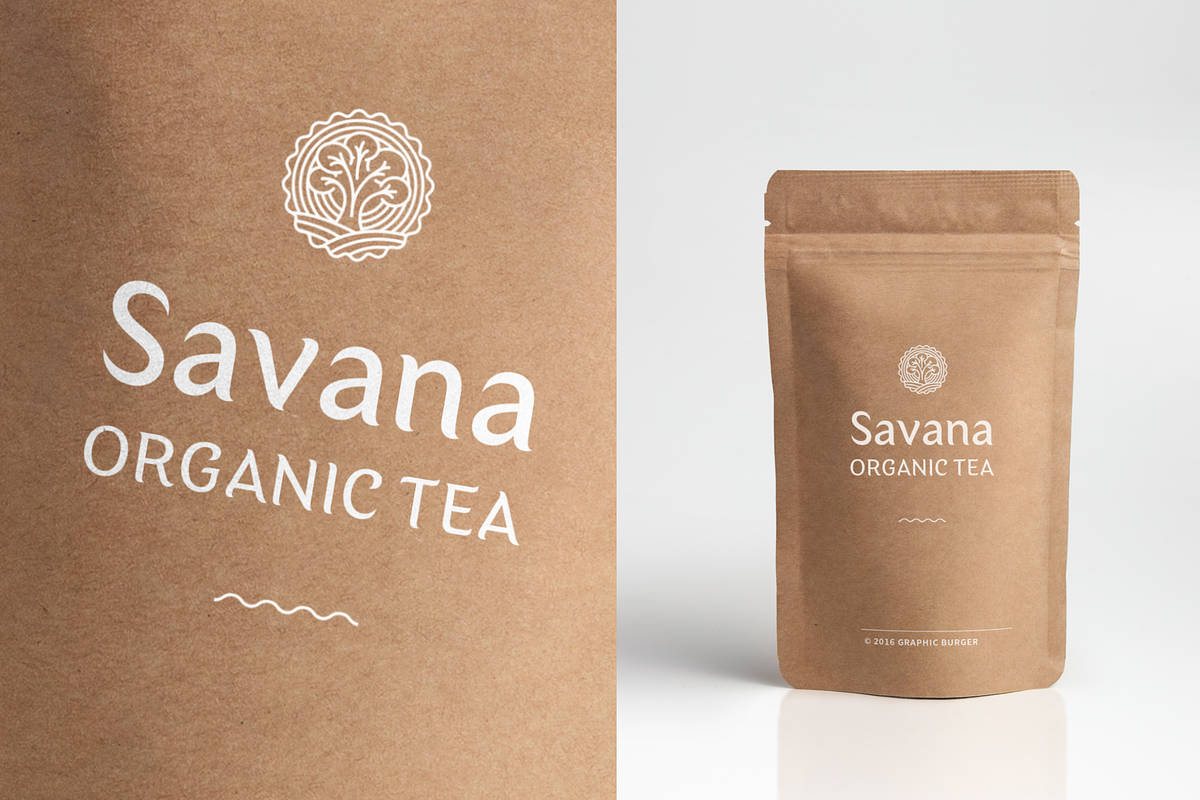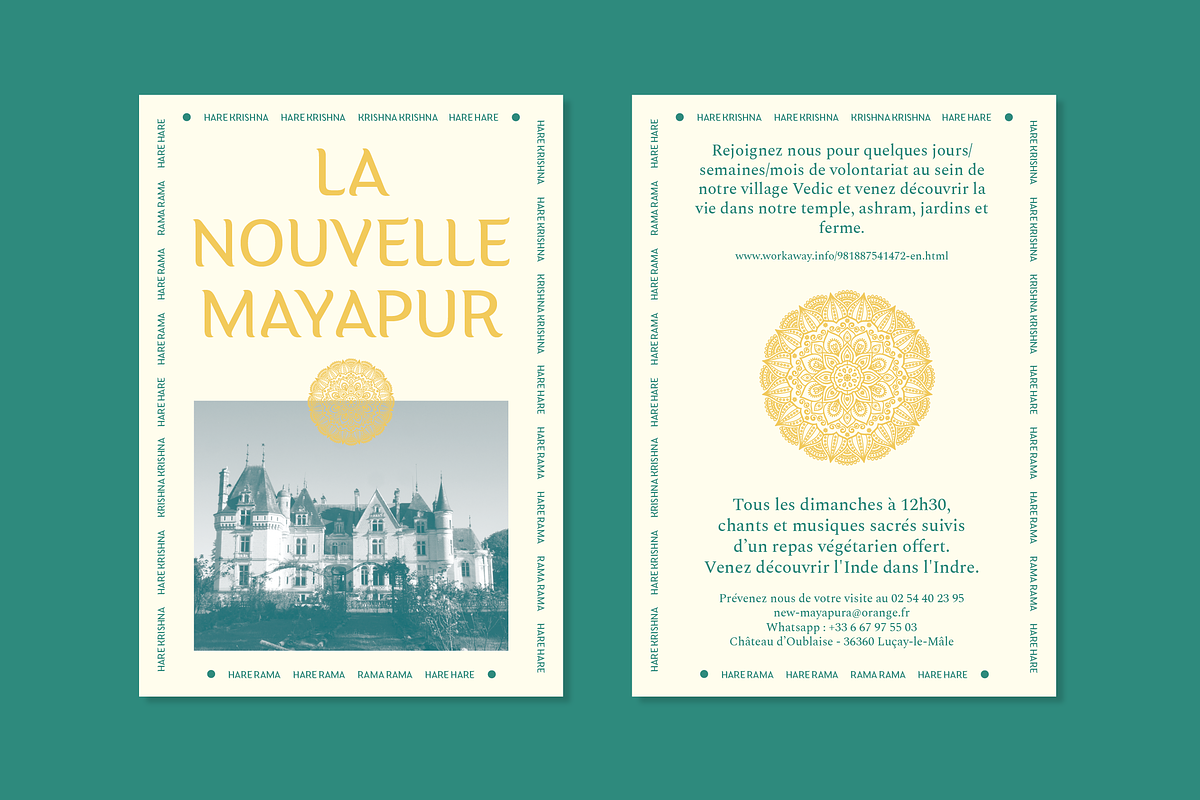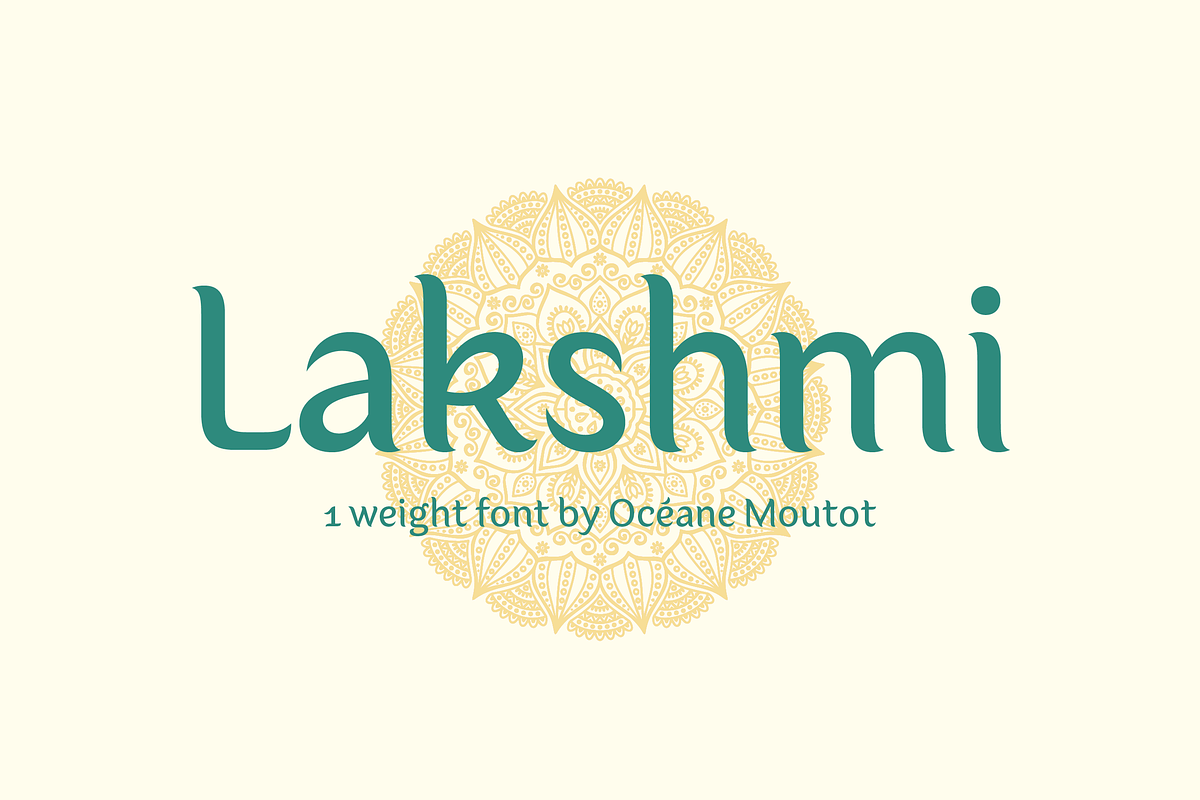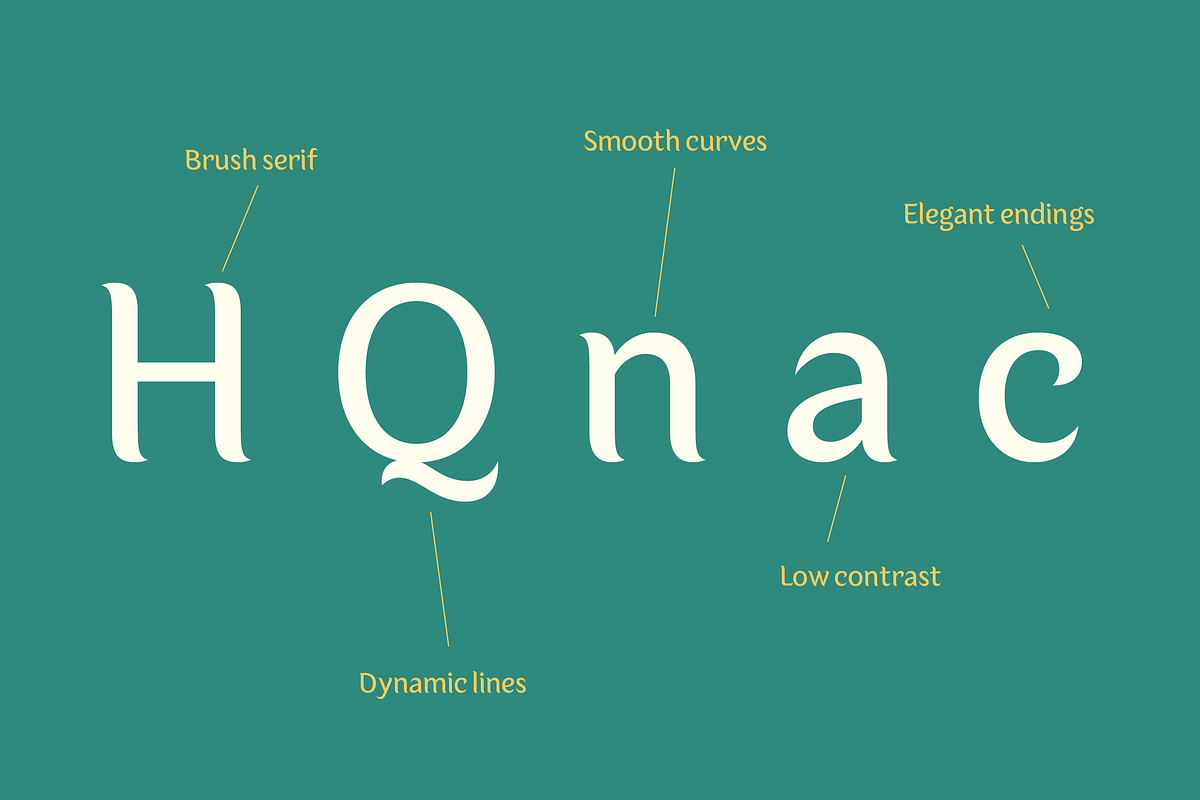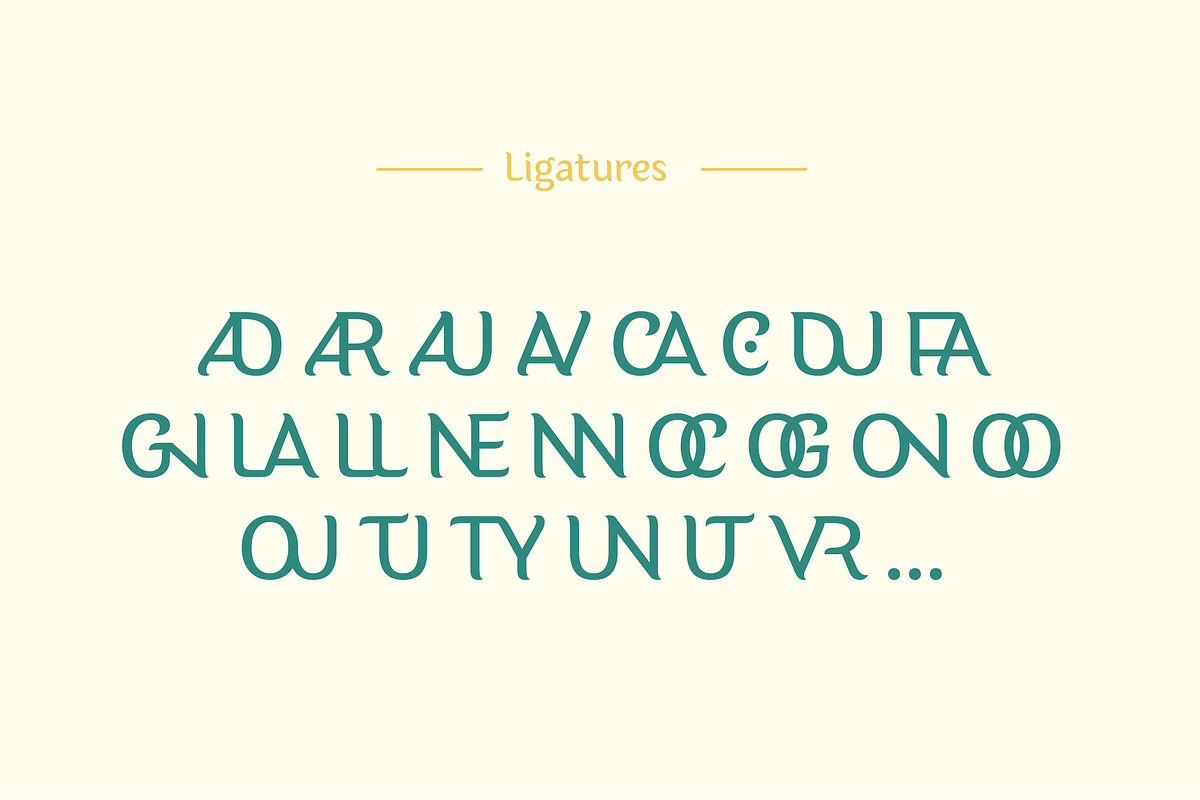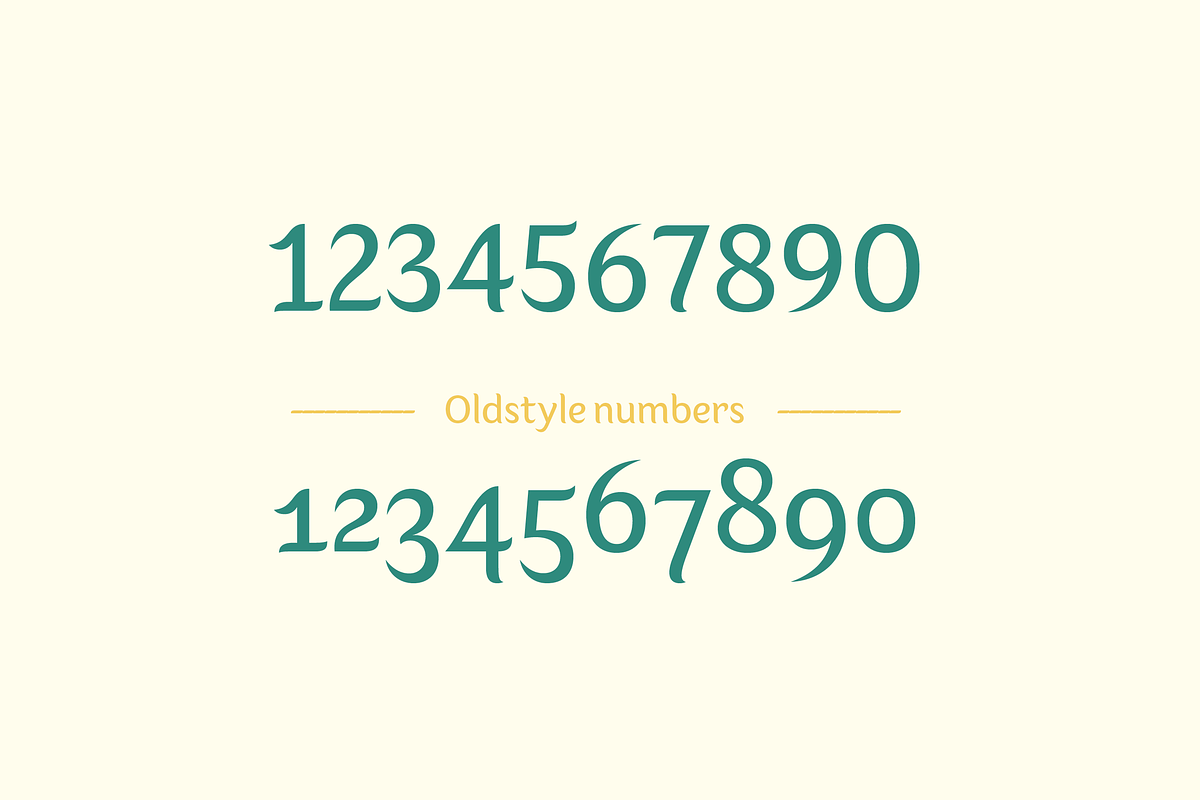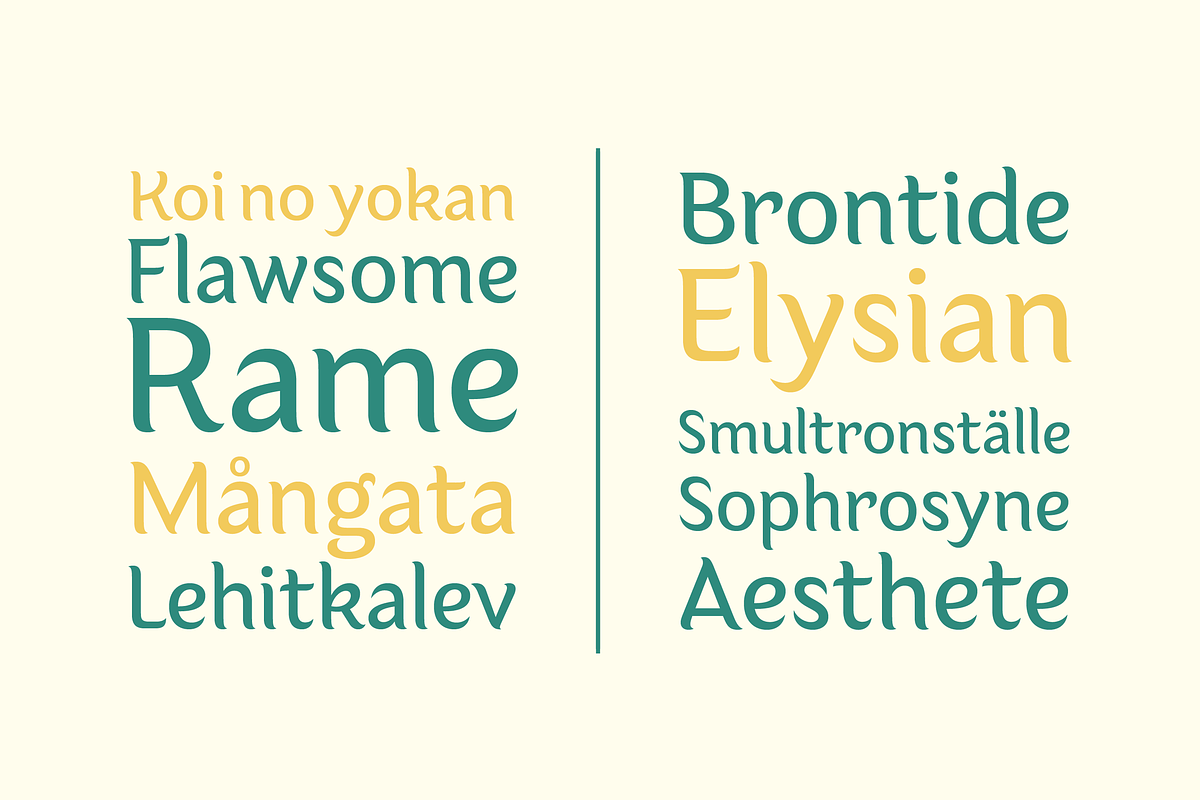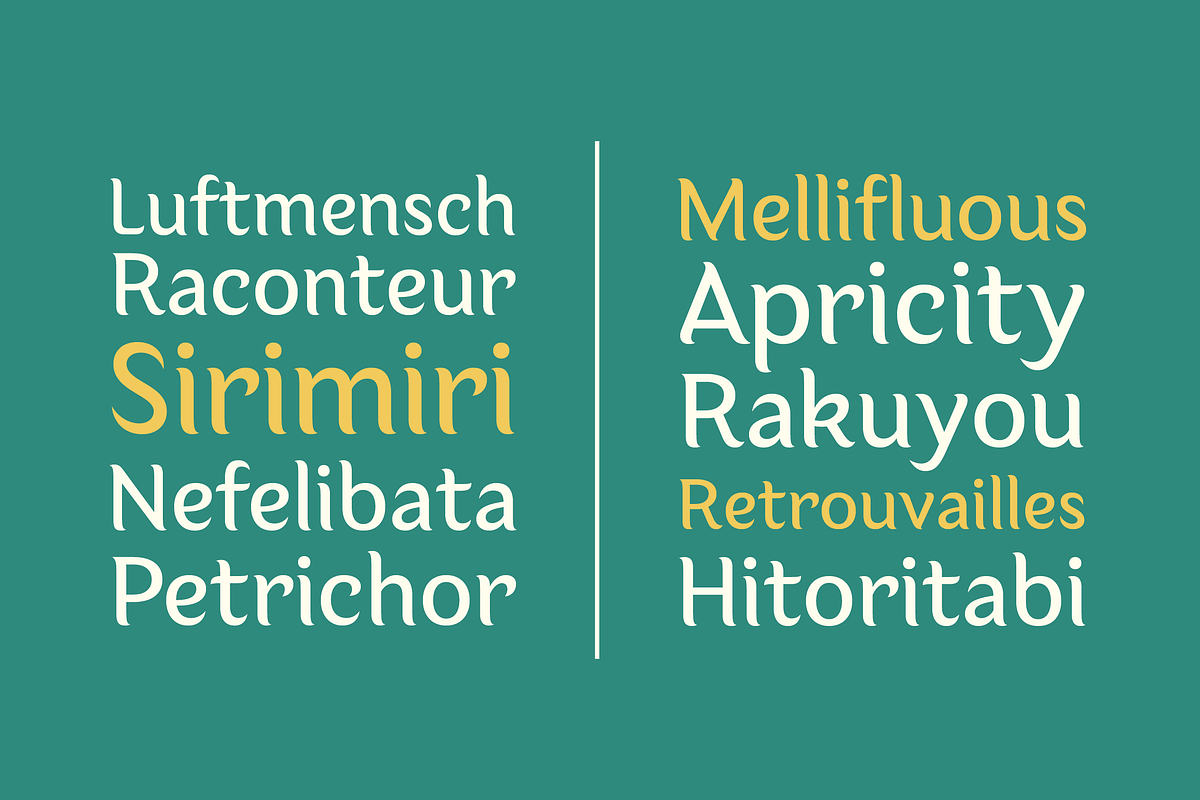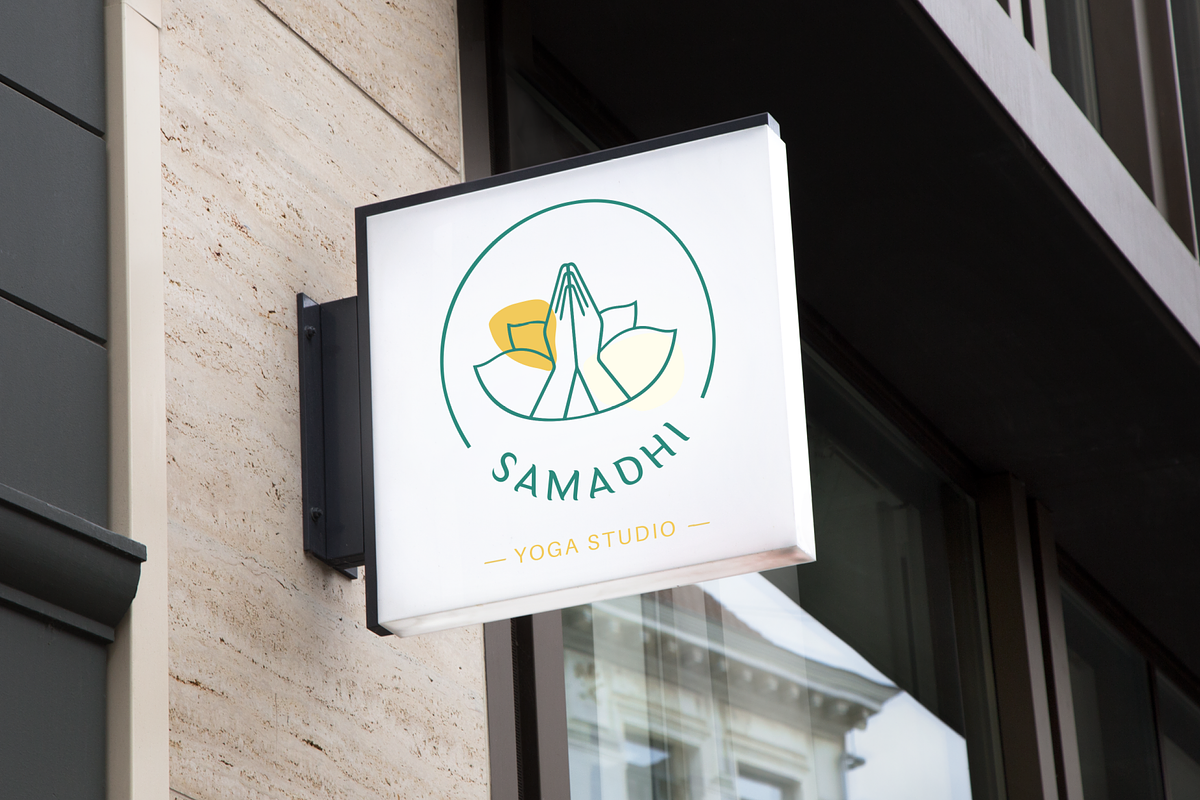
Lakshmi
Lakshmi is an elegant and friendly script font. Inspired by brushed typography, it adds elegance, tension and typographic rigour to traditional script fonts. It's identified by its dynamic curves and the softness of its design.
Lakshmi is ideal for display use, logotype, headline, packaging and advertising.
Lakshmi is designed with extended language support, alternative characters as well as various ligatures and old-style numbers.